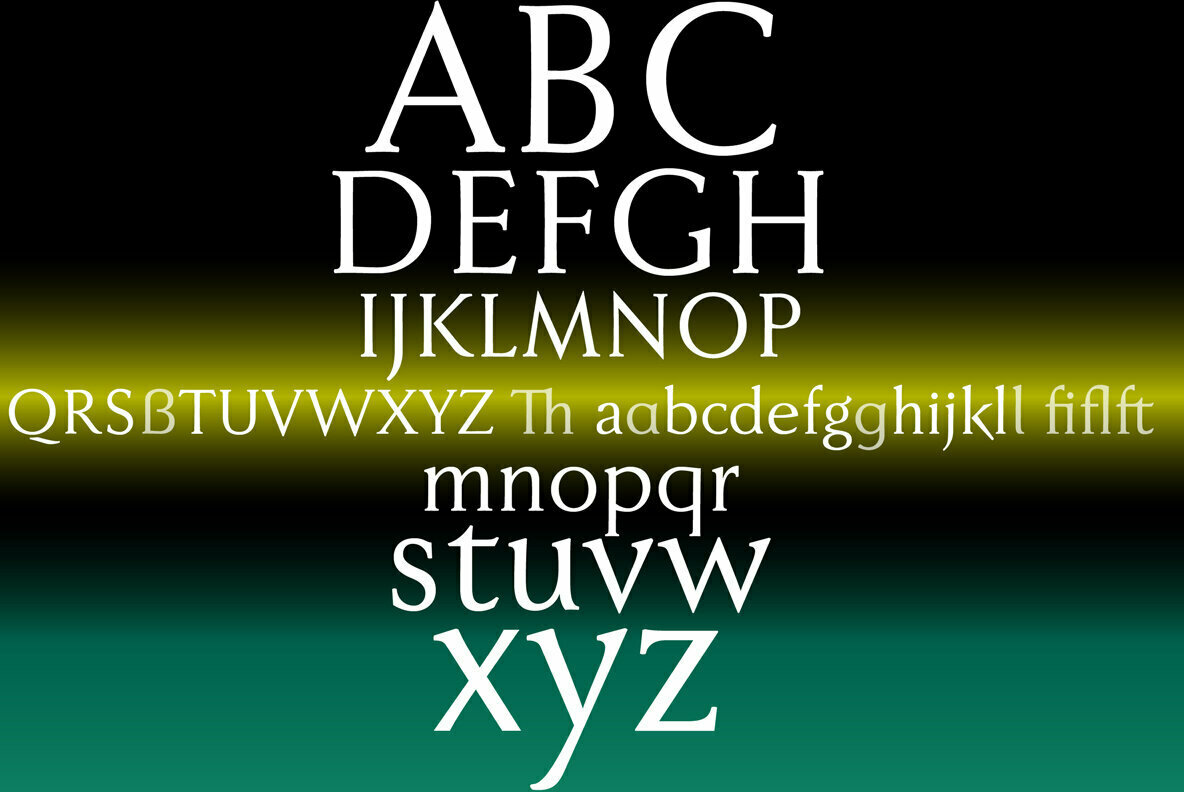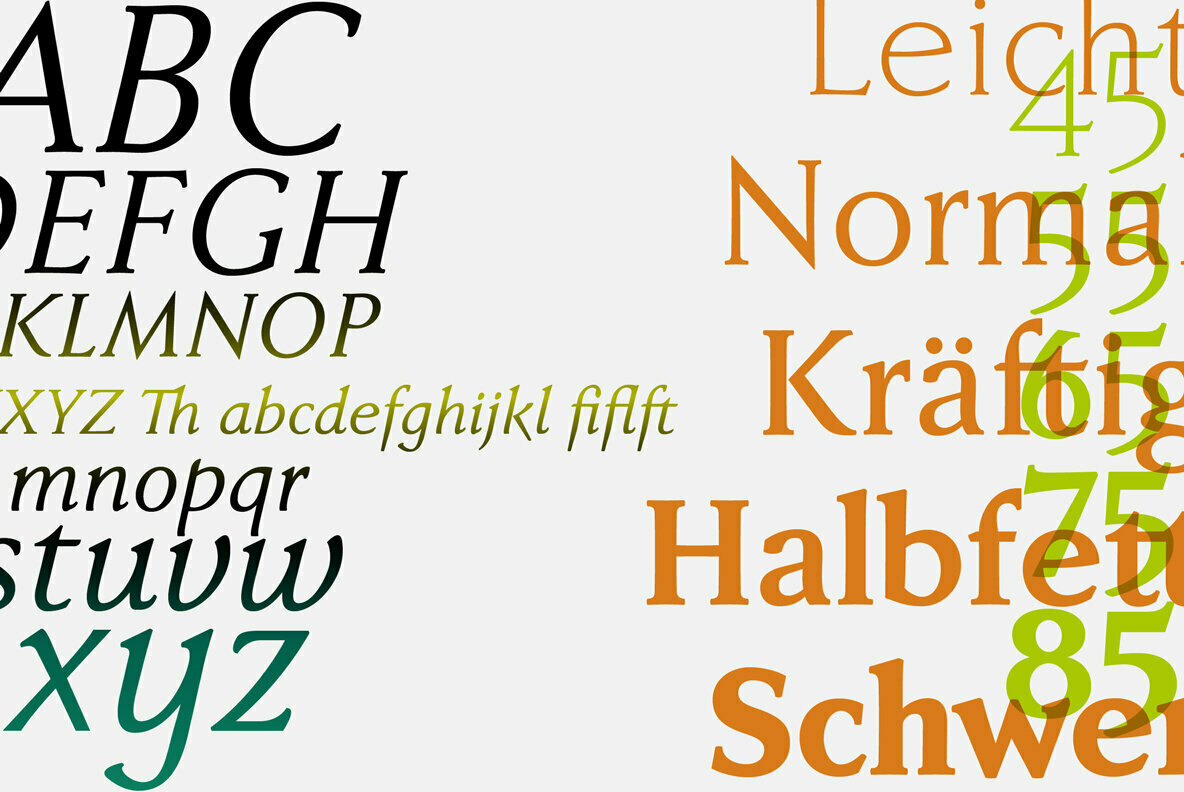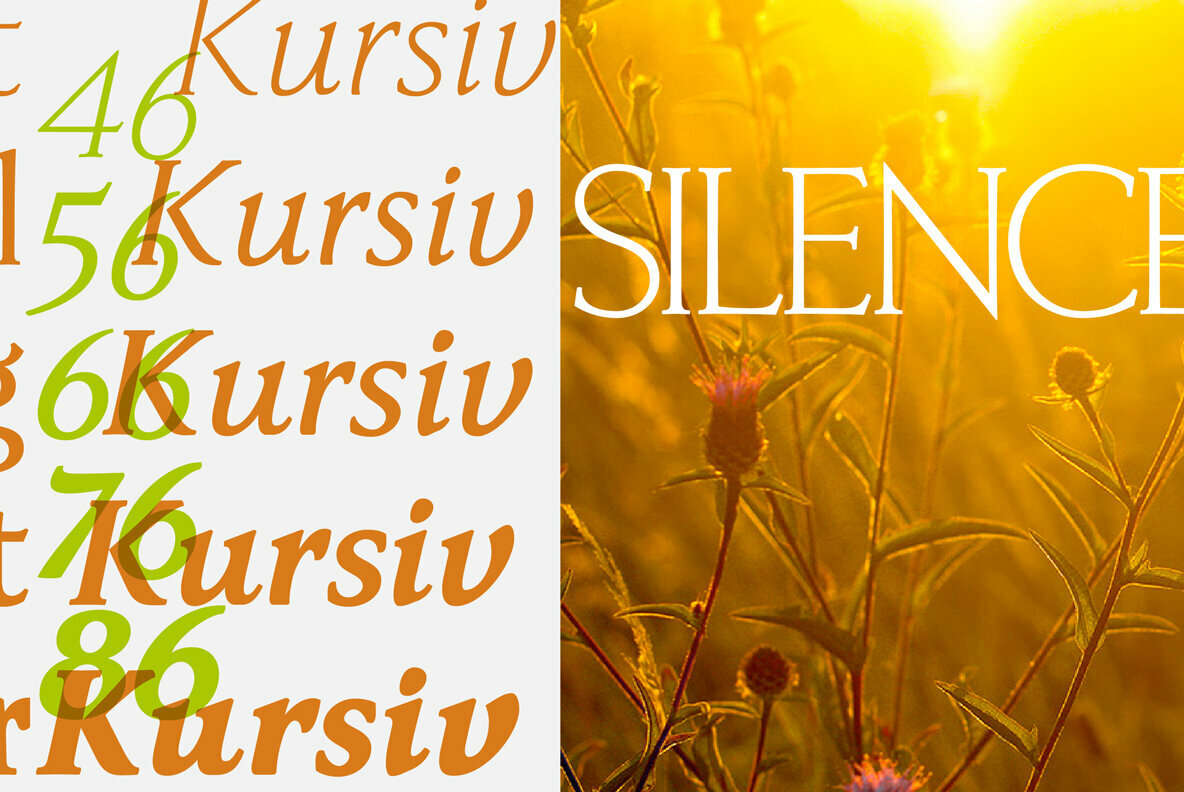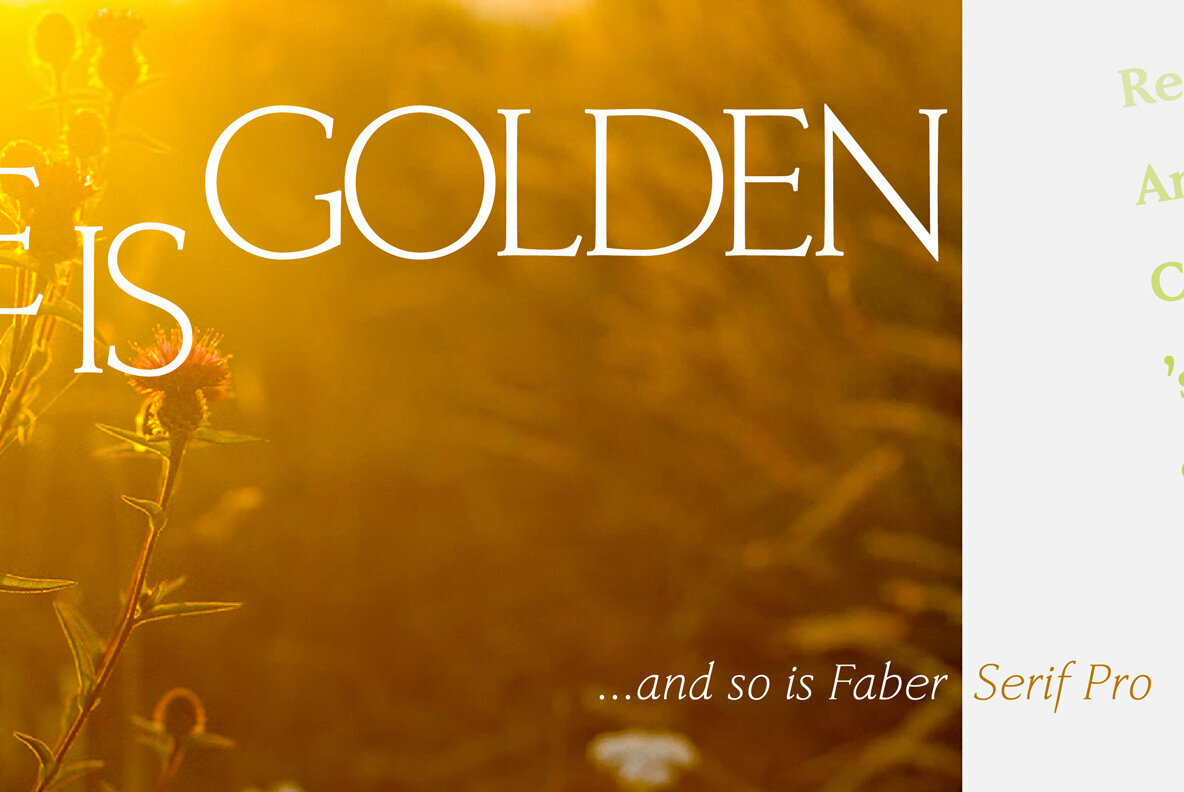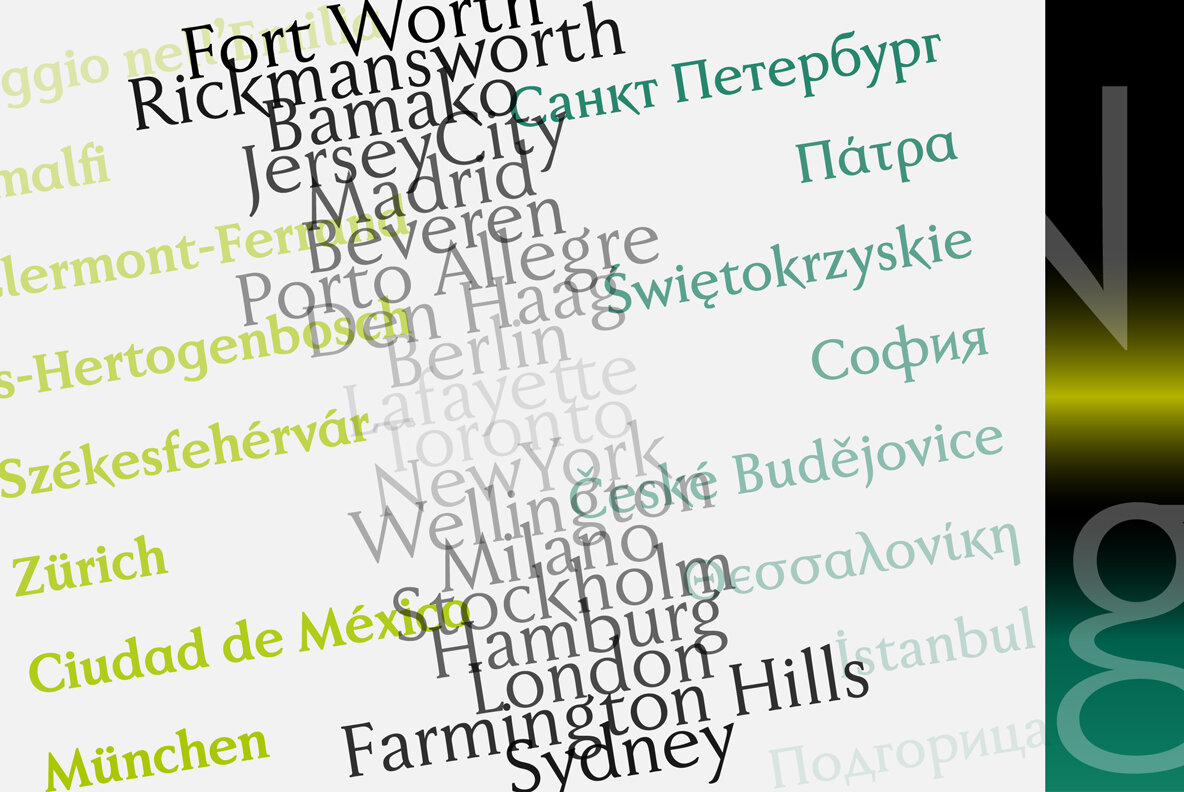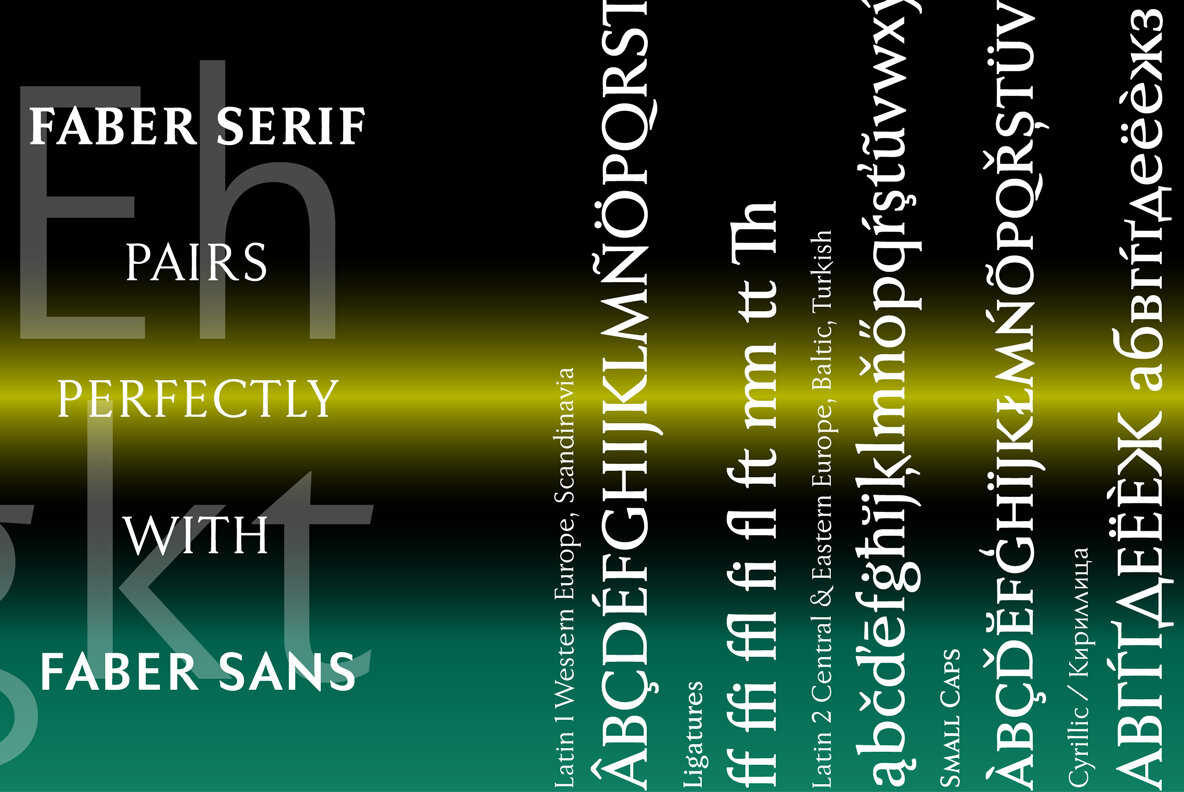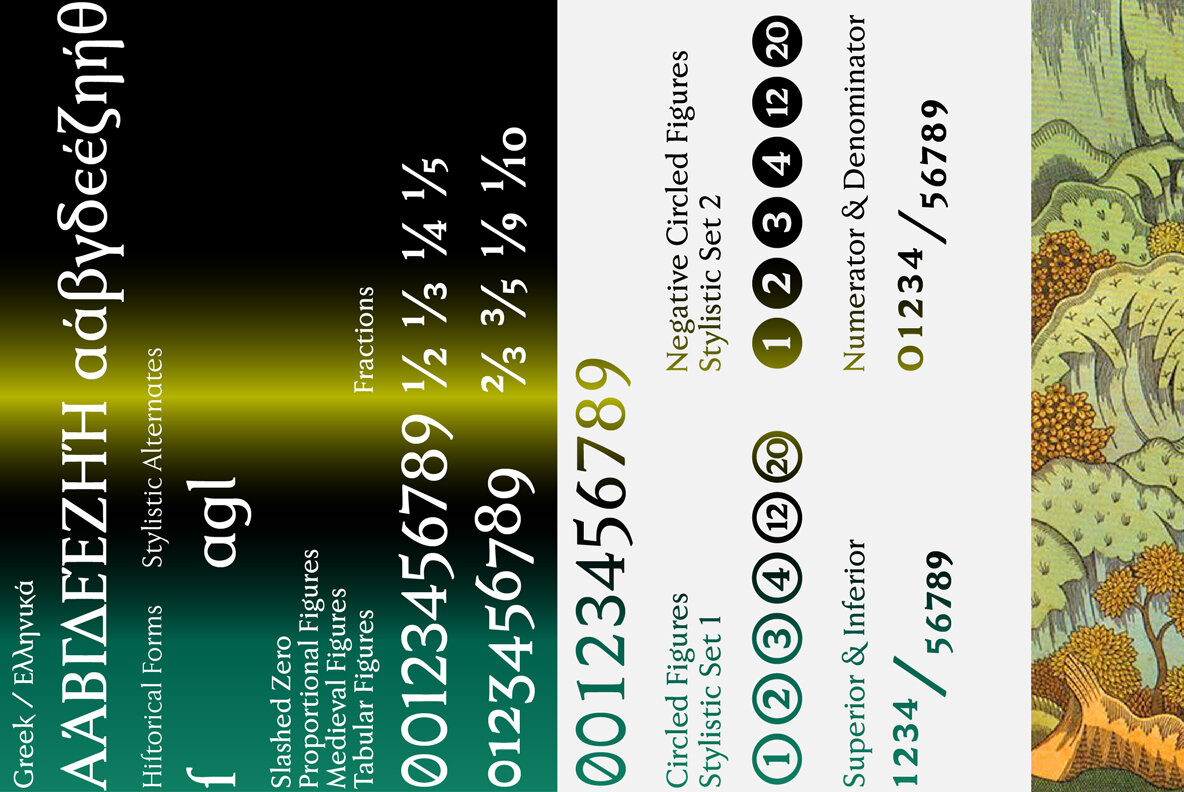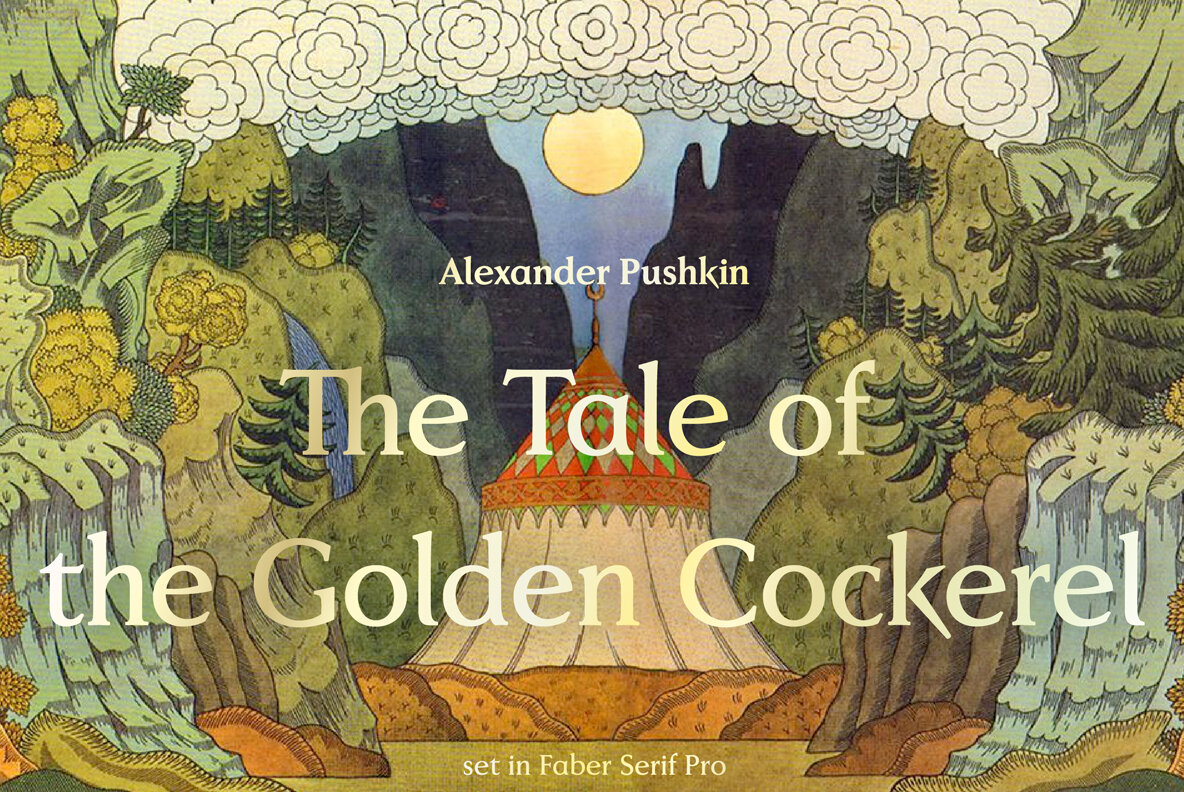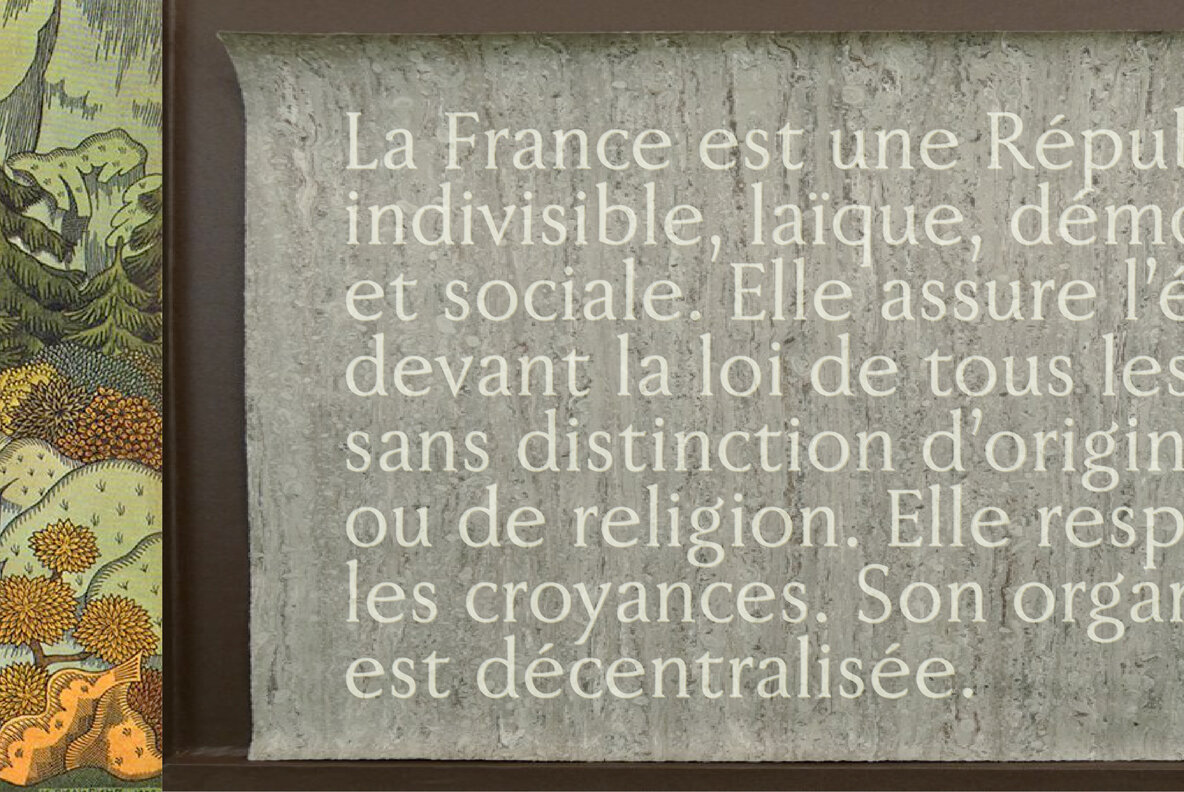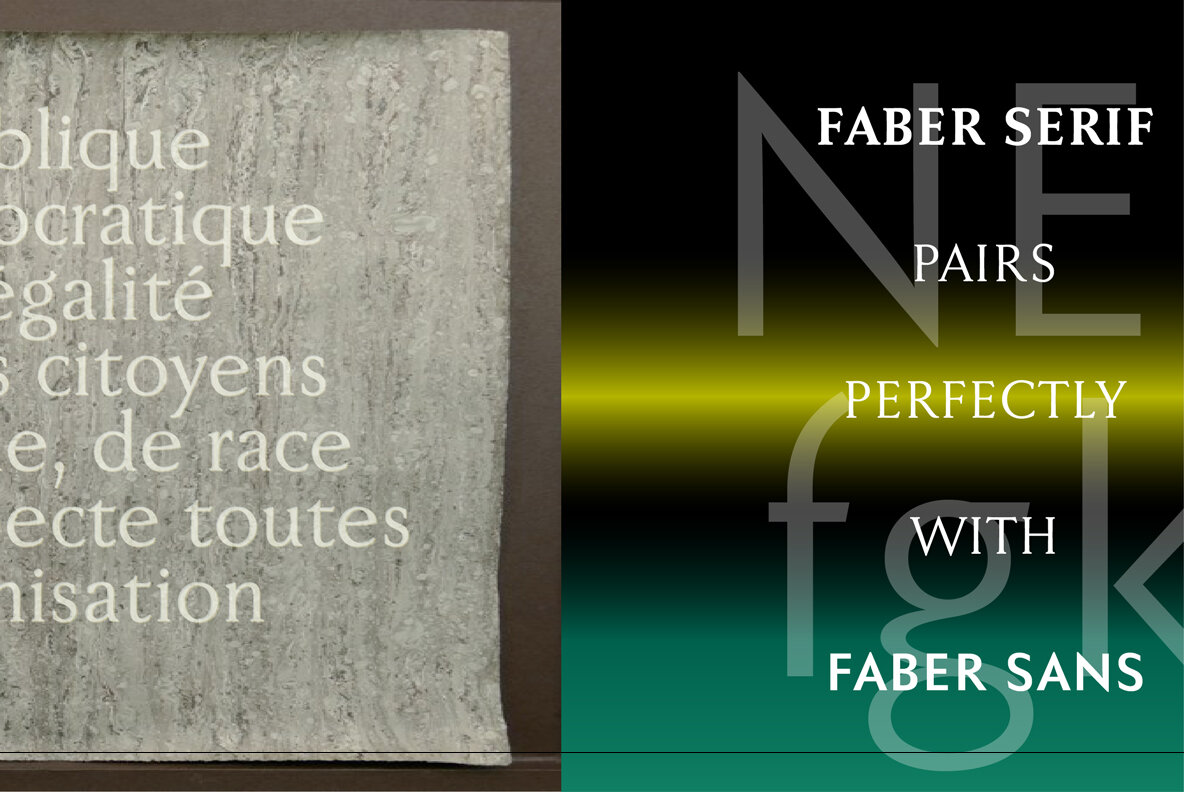
Faber Serif Pro Font
Faber Serif is the Roman typeface which was born out of the sans serif design Faber Sans. The proportions are nearly identical to those of Faber Sans.
In comparison, Faber Serif has heavy — although very short — serifs. The character of contrasting strokes is not very pronounced; therefore, this font is closely related to the first Roman typefaces from the 15th century. The Kursiv (Italic) also has very reserved serifs, which are quite appealing to modern reading habits.
Several OpenType-Features are included in Faber Sans, which can be turned on and off as required:
- Stylistic Alternates: replaces the letters a, g, l by the alternate glyph, also in ligatures.
- Ligatures: replaces the letter combinations fi, fl, ff, ffi, ffl, ft, tt, Th with the corresponding ligature.
- Discretionary Ligatures: replaces ch, ck, mm with the appropriate ligature and SS with capital-ß.
- Tabular Figures: replaces proportional standard figures with tabular non-proportional figures.
- Medieval Figures: replaces standard figures with medieval figures, which have ascenders and descenders like the lowercase letters.
- Fractions: replaces the glyph combinations 1/2, 1/3, 1/4 etc. with the according fractions.
- Slashed Zero: replaces the normal »open« 0 with a slashed zero.
- Small Caps: replaces uppercase letters with small capitals at the optical height of x.
- Historical Forms: replaces s with „long s“.
- Stylistic Set 1: replaces the numbers 1 through 20 with circled numbers.
- Stylistic Set 2: replaces the standard figures 1 through 20 with negative circled numbers.
- Stylistic Set 3: replaces the »two-story« a with the »round« alternate.
- Stylistic Set 4: replaces the »straight« l with the alternate form »with a hook«.
- Stylistic Set 5: replaces the »two-story« g with the »round« alternate
Faber Serif perfectly matches with Faber Sans!